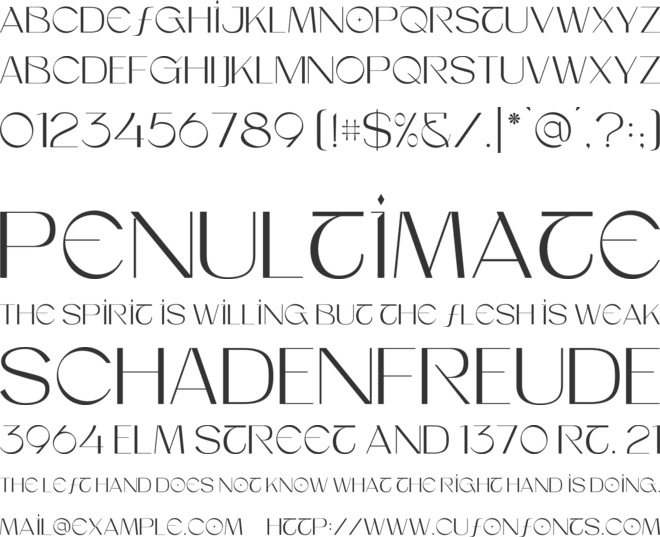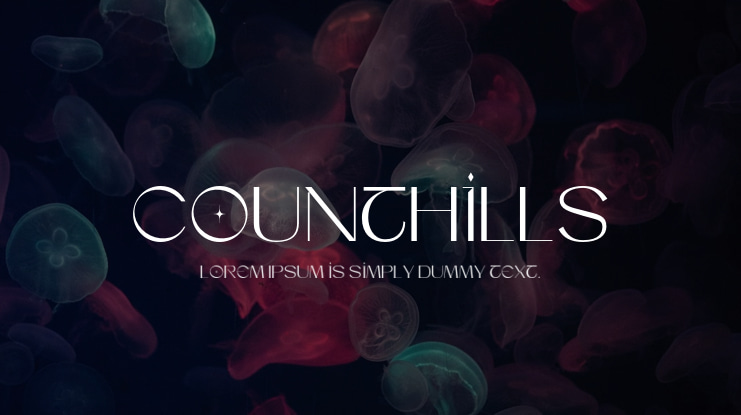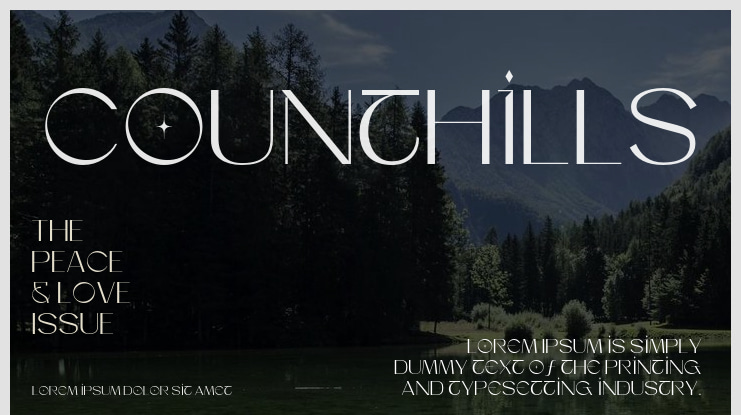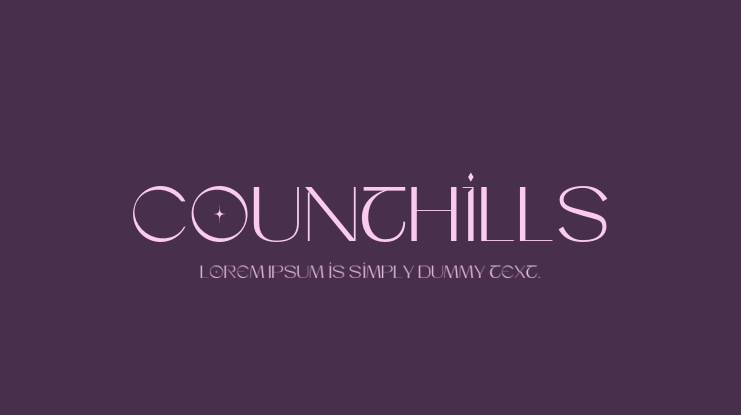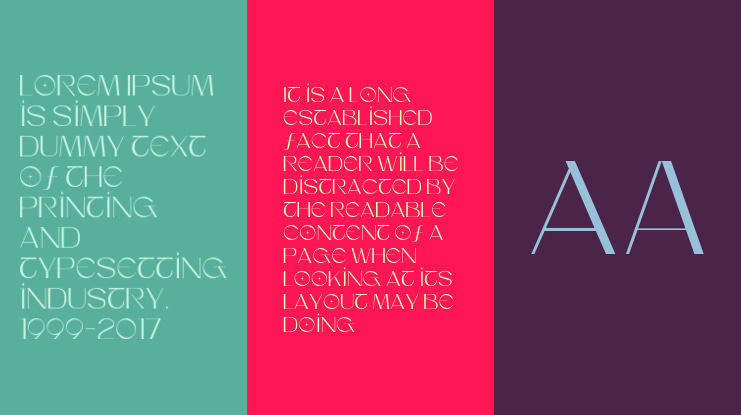
Counthills Font
Modern contemporary display typeface, It conveys innovation and sophistication, creating a strong visual impact in modern style typeface.